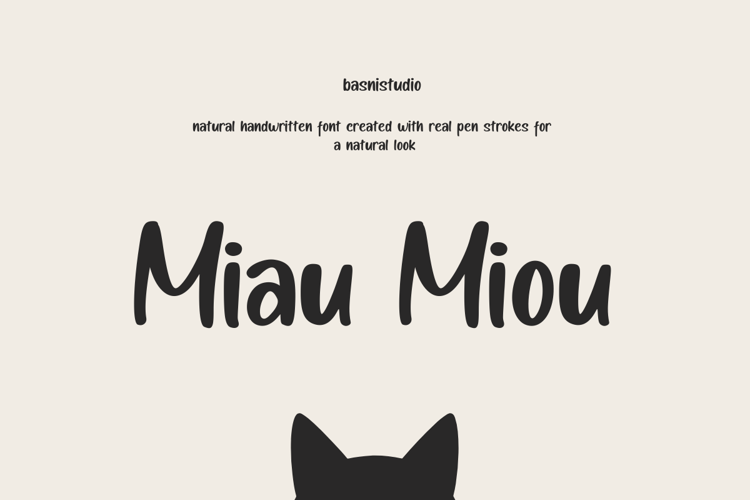
Miau Miou Font
Introducing Miau Miou – Casual Handwritten Font for Branding
Handwritting Font Created with real pen strokes for a natural look and casual touch to everything from branding and social media to invitations and packaging.